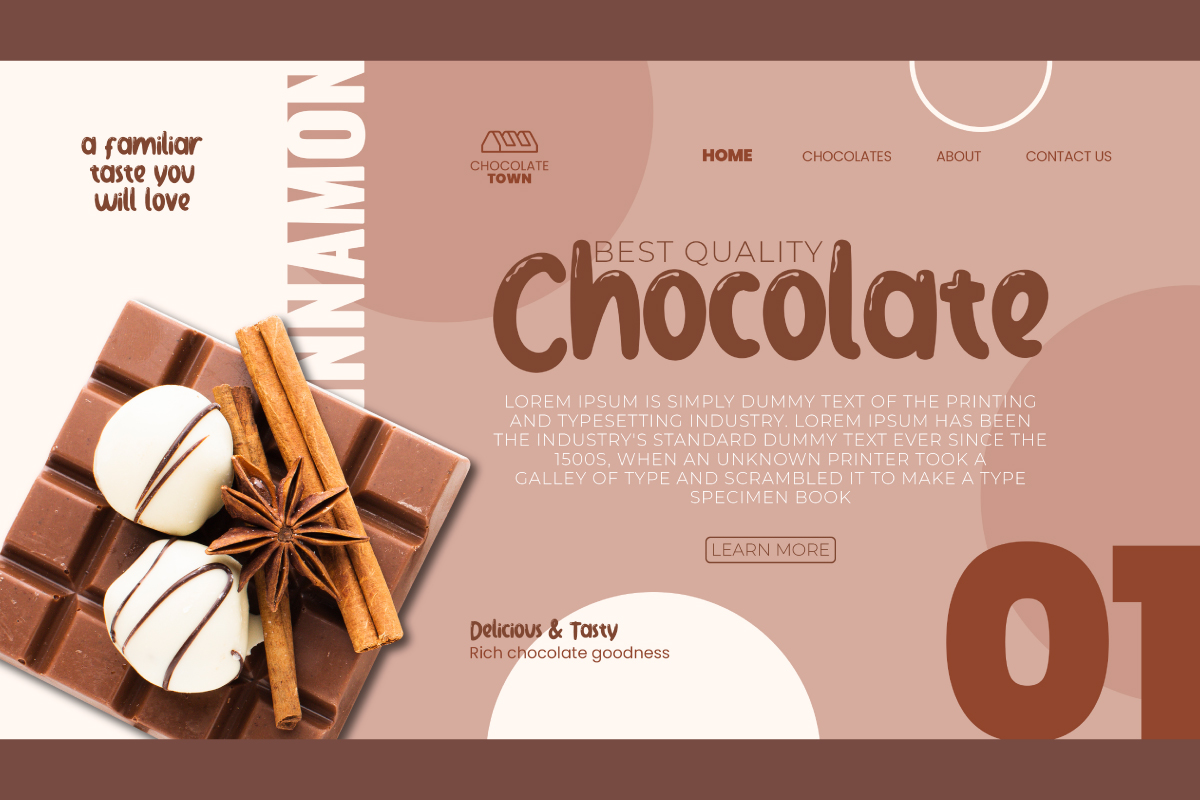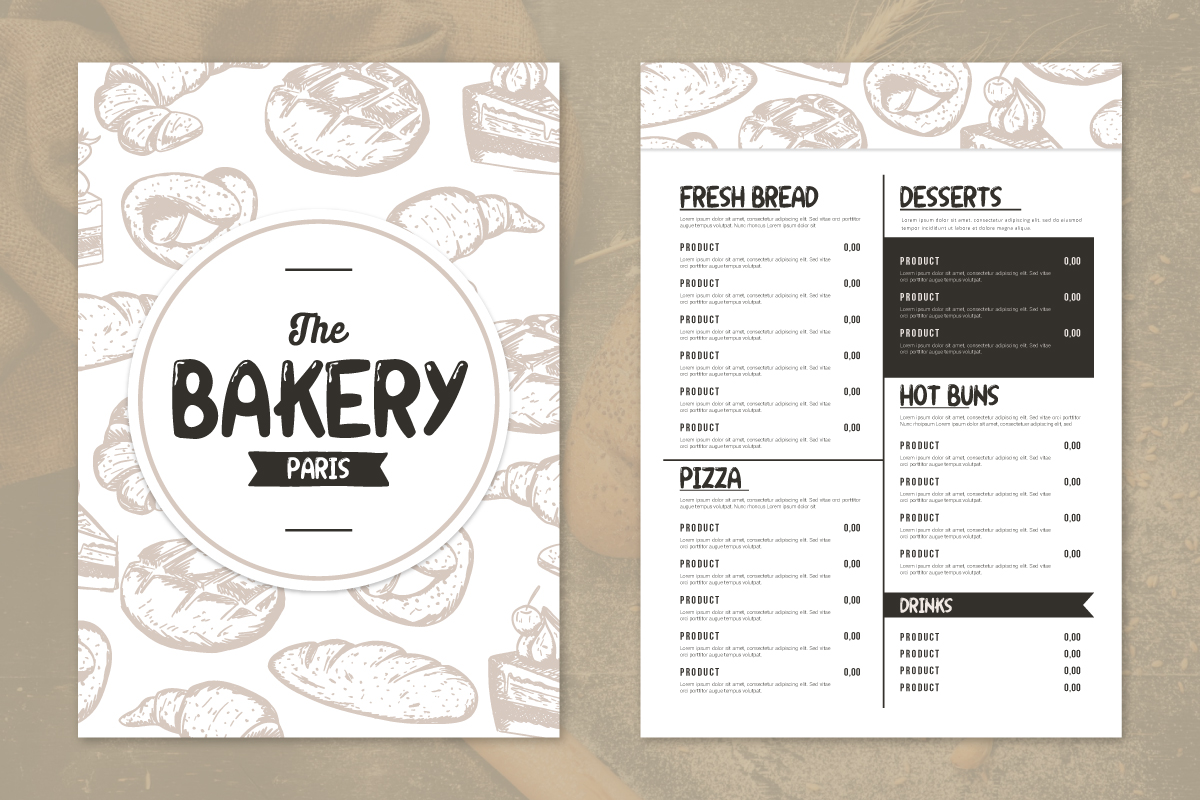
Bread Coffee Font
Bread Coffee Display Font
This font is a display cartoon style fonts come in shinny bubble shapes. Childish, playful look which makes it perfect for kids designs. You will make a difference in your projects with this font style.
This font includes full set of Uppercase and Lowercase Basic Characters, Numerals and Punctuation. Great for many projects: business card, logo branding, menu sheet, product designs and more!